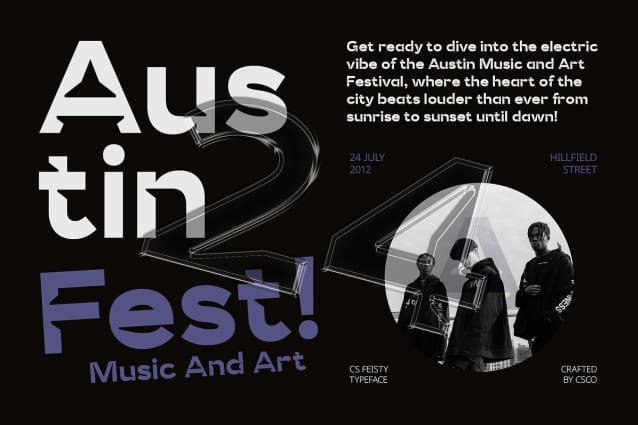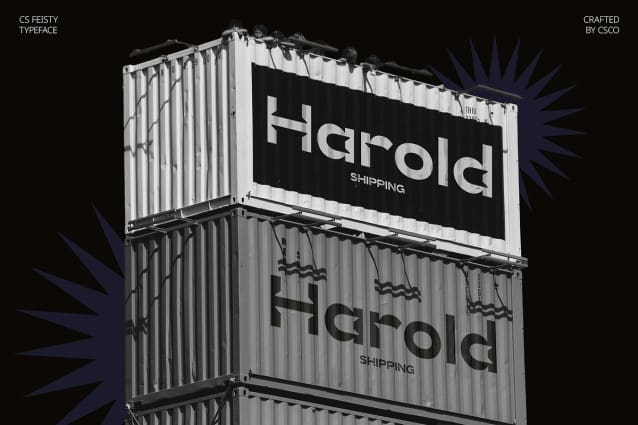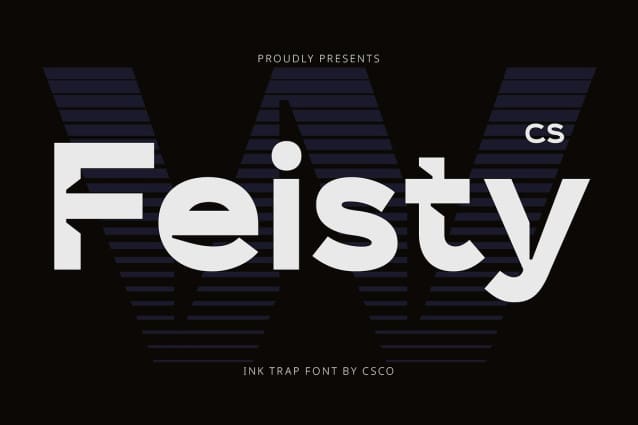
CS Feisty Font
CS Feisty Font is a modern sans-serif font featuring distinctive inktrap shapes that add a clean and contemporary touch to its design. The font’s cut-out corners and dynamic inktrap elements reduce visual clutter, enhancing readability while maintaining a sharp and stylish appearance.
Enhanced Readability with Dynamic Appeal The inktrap design of CS Feisty ensures improved readability by smoothing out the transitions between strokes and corners. This functional element not only contributes to a clearer text presentation but also adds a dynamic edge to the font, making it suitable for a variety of modern design applications.
Ideal for Professional and Modern Designs Perfect for branding, web design, and promotional materials, CS Feisty combines modern simplicity with functional design features. Its professional and elegant visual effect makes it an excellent choice for projects that require a contemporary look with a focus on clarity and style.
Versatile for Various Creative Projects CS Feisty’s blend of modern aesthetics and inktrap functionality offers versatility across different design contexts. Whether for digital interfaces or printed materials, this font provides a sophisticated and effective solution, enhancing the visual impact of your projects with its elegant and dynamic appearance.